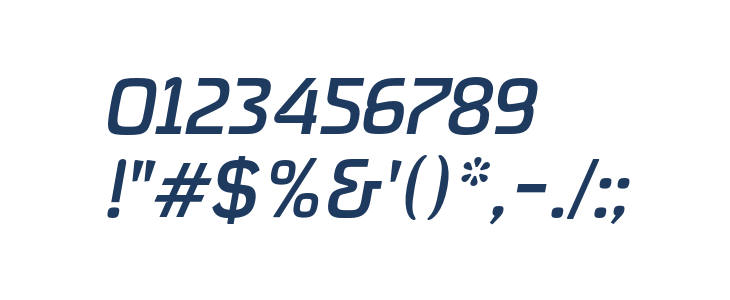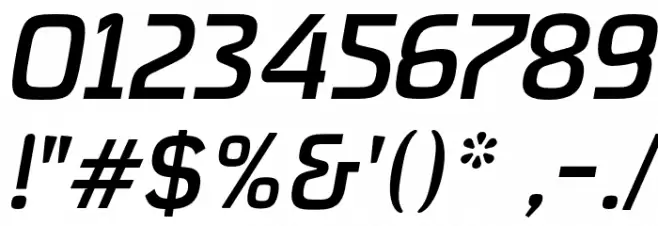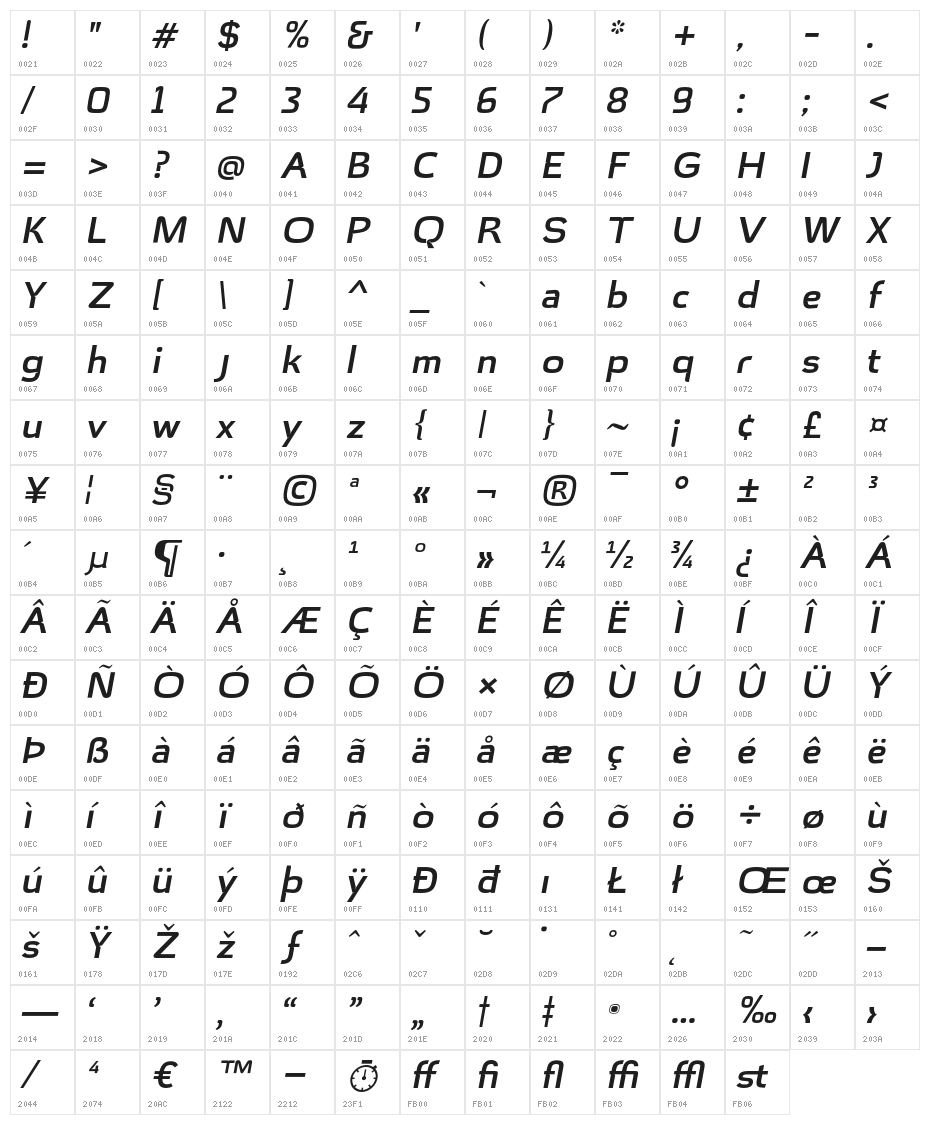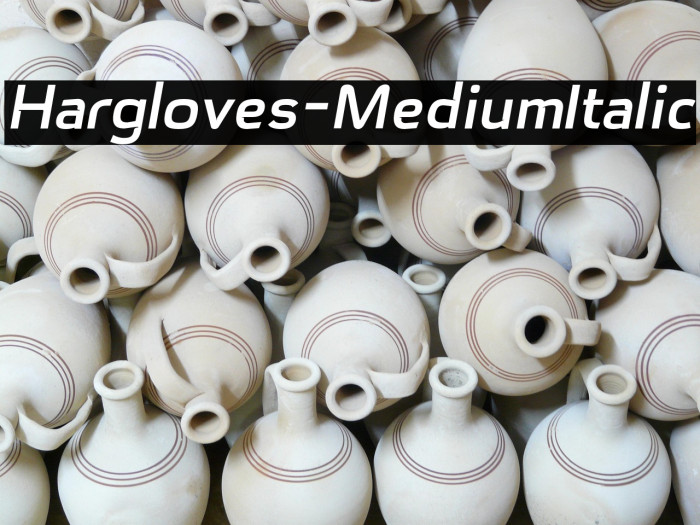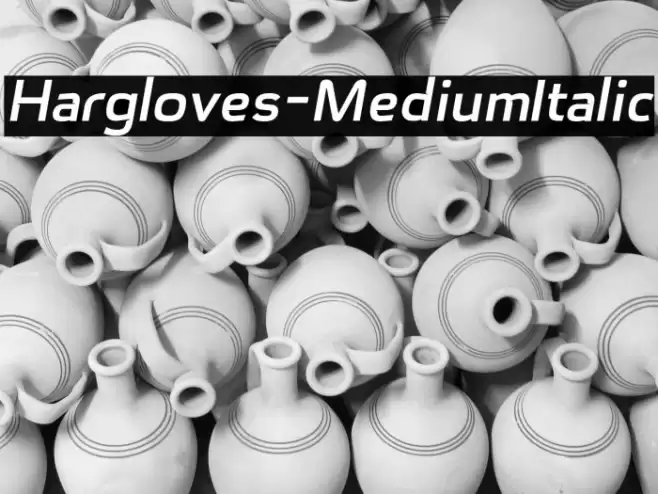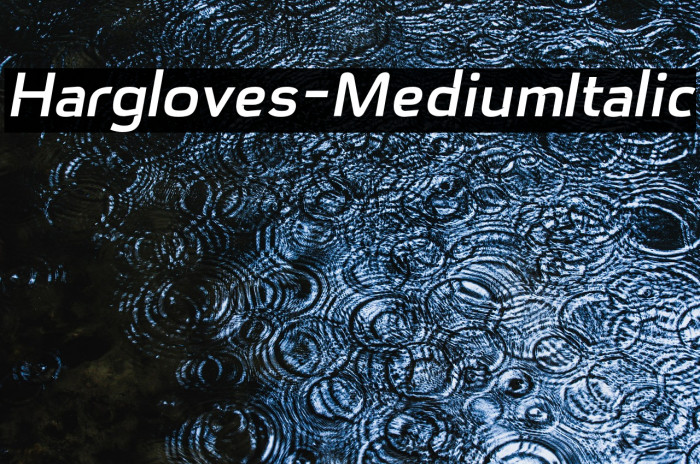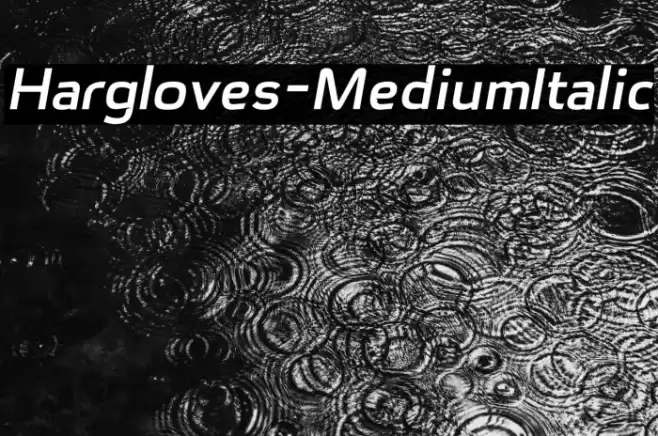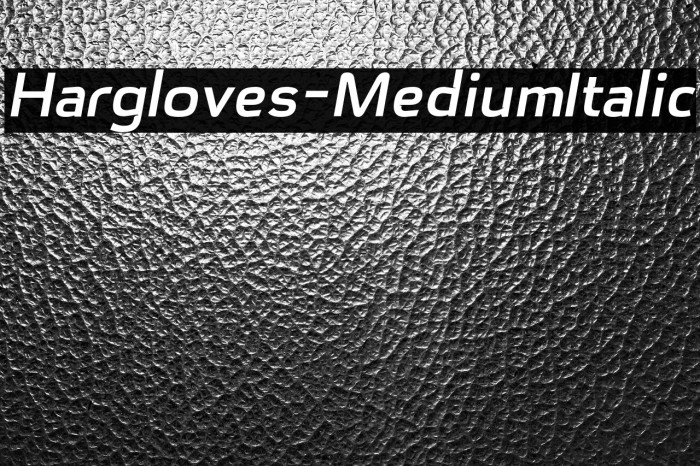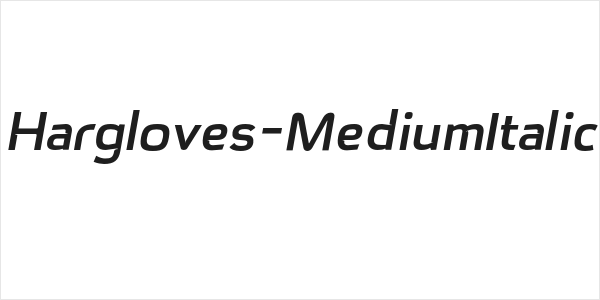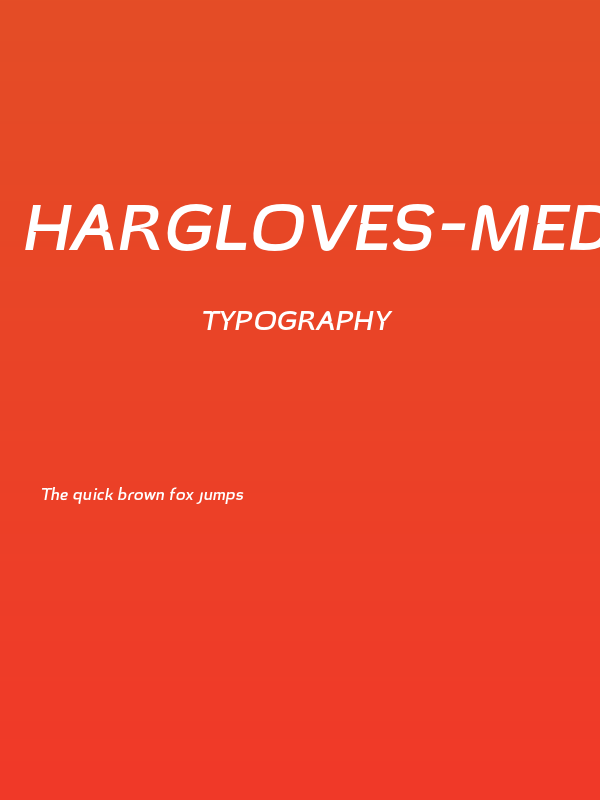
Hargloves-MediumItalic Font
Hargloves-MediumItalic Description
This font features a sleek, modern design with a slight italic slant, giving it a dynamic and forward-moving appearance. The characters are well-proportioned, with a consistent stroke width that maintains readability while adding a touch of elegance. The uppercase letters are bold and assertive, while the lowercase letters maintain a smooth flow, making it versatile for various design needs. The numerals are clear and distinct, ensuring legibility in both digital and print formats. Special characters are thoughtfully designed to complement the overall style, making this font suitable for a wide range of applications.
| Use Case | Headlines, Logos, Editorial design |
| Proposed Projects | Ideal for branding, advertising, and editorial design projects where a modern and stylish look is desired. |